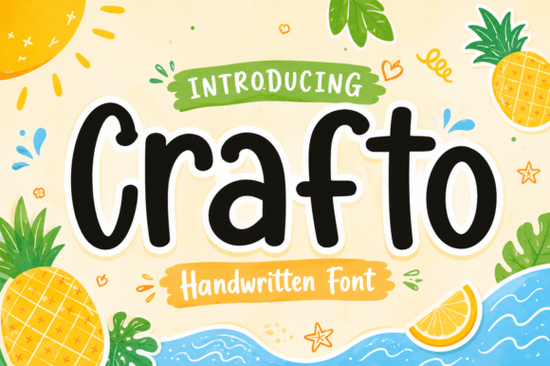
When you're looking for a font that can add a touch of whimsy and warmth to your designs, Crafto Font is an excellent choice. This enchanting handwritten display font brings a handcrafted sensibility with its soft, rounded strokes and playful letterforms. Whether you're designing children's products, summer-themed projects, or branding materials, Crafto infuses a vibrant and engaging personality into every creation.
What Makes Crafto Font Stand Out?
Crafto Font is not just another script font; it's a carefully crafted typeface that combines the charm of hand-drawn elements with stellar readability. The soft, rounded strokes and audacious, whimsical letterforms make it a standout choice for any design project. Whether you're working on a poster, a social media graphic, or packaging, Crafto adds a unique and inviting touch.
Perfect for Children's Products
One of the most appealing aspects of Crafto Font is its suitability for children's products. The playful and friendly nature of the font makes it ideal for creating engaging and fun designs. Whether you're designing a children's book, a birthday invitation, or educational materials, Crafto can help you create a design that resonates with kids and parents alike.
Ideal for Summer-Themed Projects
Summer is all about vibrant colors and cheerful vibes, and Crafto Font captures that essence perfectly. Its warm and inviting style makes it a great choice for summer-themed designs, such as beach party invitations, seasonal marketing materials, and even summer-themed social media graphics. The font's whimsical nature adds a touch of fun and excitement to any summer project.
Enhancing Branding and Packaging
Branding and packaging are crucial for making a lasting impression, and Crafto Font can help you achieve that. The font's character-filled persona adds a unique and memorable touch to your brand. Whether you're designing a logo, product packaging, or promotional materials, Crafto can help you create a design that stands out and leaves a positive impact on your audience.
Creating Engaging Social Media Graphics
In today's digital age, social media is a powerful tool for reaching your audience. Crafto Font can help you create engaging and eye-catching social media graphics that capture attention and drive engagement. Whether you're designing posts for Instagram, Facebook, or Twitter, the font's playful and inviting style can help you create content that resonates with your followers.
How to Use Crafto Font in Your Designs
Incorporating Crafto Font into your designs is easy and can significantly enhance the overall look and feel of your projects. Here are some tips on how to use Crafto effectively:
- Choose the Right Context: Crafto is perfect for projects that require a playful and inviting tone. Consider using it for children's products, summer-themed designs, and branding materials.
- Combine with Complementary Fonts: To create a balanced and visually appealing design, pair Crafto with complementary fonts. For example, you can use a simple sans-serif font for body text and Crafto for headings and titles.
- Play with Colors: Experiment with different color palettes to bring out the best in Crafto. Soft, pastel colors can enhance the font's gentle and whimsical nature, while bold, vibrant colors can add a more dynamic and energetic feel.
- Test Readability: While Crafto is designed to be readable, it's always a good idea to test how it looks at different sizes and on various backgrounds. Ensure that the text is legible and easy to read, especially for longer passages.
Other Similar Fonts to Consider
If you love the style of Crafto Font, there are other similar fonts that you might find equally appealing. Here are a few options:
- Love Doodle Font: A charming and whimsical script font that adds a touch of elegance and playfulness to your designs.
- Farmhouse Handwriting Font: A rustic and handcrafted font that brings a cozy and inviting feel to your projects.
- Candies Honeymoon Font: A sweet and romantic script font that is perfect for wedding invitations, greeting cards, and other special occasions.
Final Tips for Using Crafto Font
To get the most out of Crafto Font, keep these final tips in mind:
- Experiment with Layouts: Try different layout options to see how Crafto fits into your design. Play with spacing, alignment, and positioning to create a visually appealing composition.
- Use for Special Occasions: Crafto is perfect for special occasions like birthdays, weddings, and holidays. Use it to create personalized and memorable designs for these events.
- Stay Consistent: When using Crafto in a larger project, maintain consistency in your font usage. This will help create a cohesive and professional look throughout your design.
By following these tips and exploring the possibilities of Crafto Font, you can create designs that are both charming and effective. Whether you're a designer, crafter, or small business owner, Crafto can help you add a unique and inviting touch to your projects.